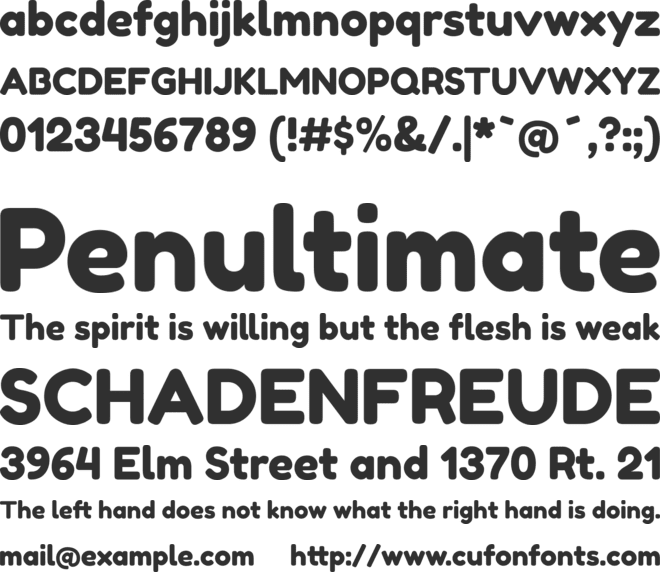
Fredoka one font ttf. Download fredoka font family · free for commercial use · fredoka one is a big, round, bold font that is perfect for adding a little fun to any headline or large text. Ad download 100's of fonts, graphic assets, actions, icons & more! The fredoka one font has been downloaded 96,818 times.
The font fredoka one is also perfect for branding projects, homeware. Fredoka one (truetype, opentype) character map image. The font collection section is the place where you can browse, filter, custom preview and.
Fredoka one font is one of fredoka one font variant which has regular style. 100% free to download and install it into the system for your personal & commercial use!. About the font fredoka one.
You can check out the characters in the image below to see how cool and beautiful this font is. Fredoka one is free for personal use only. Fredoka one is the perfect font for all your fun designs.